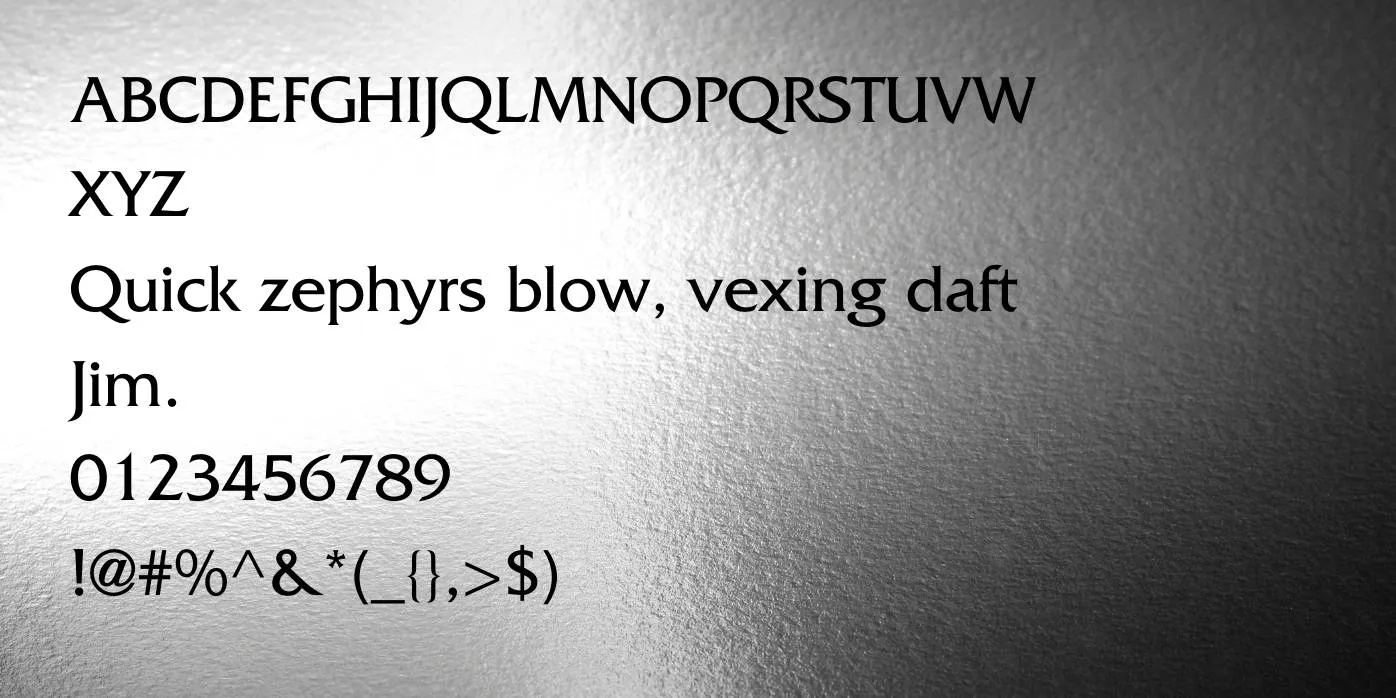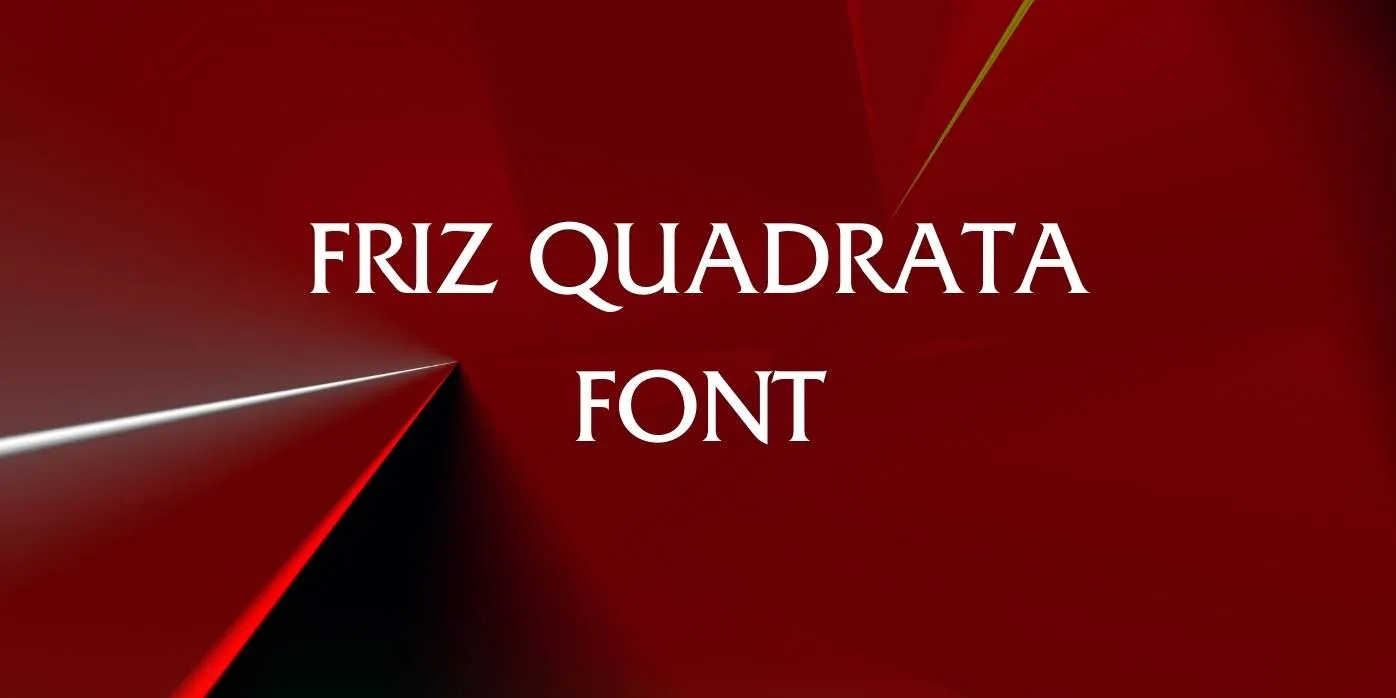
Friz Quadrata Font
Friz quadrata font is available here and it is highly utilized for its bold and italic function also for its use inside adobe and it is also used in android devices. The font family belongs to a serif typeface family and the designer of this beautiful typeface is Ernst Friz, Victor Caruso. The designer made this typeface in a little bit of fancy form with small swashes that seem pretty cool. It has Uppercase and Lowercase letters, Numbers and Numerals, and some useful characters also.
The font family has OpenType Layout and TrueType Outlines. The fashion of this font can be very new and stylish. The quality’s fonts are completed, mainly, calligraphy patterns and designs of several works of artwork. ¬†Usage You may use this font in all the painting works and notable elegant works which might be very critical to you in your strolling region and one-of-a-type designing possibilities that you just like the kid font.
The typeface is very common for creating different designs in designs software and especially CSS (Cascading Style Sheet). This font can be completed in all particular duties of designing in addition to calligraphy. Awesome global places, many human beings are not aware of the one’s lovelo font styles and that they even do now not recognize what shape of this. The font is very advantageous for making logo designs, Wallpaper designs, Typography, and many more.
Friz Quadrata font is a beautiful font that is great for both digital and printing projects. The designers of this elegant font are Ernst Friz, Victor Caruso, it is free for personal use. What font is similar to Friz Quadranta Font? Friz Quadrata font is a beautiful font that is great for both digital and printing projects.
Ingleby font is the closest font that has many similarities with this font. Is Friz Quadranta a Google Font? This typeface is beautiful and elegant with lightweight characters. It does not exist in the google font that you can download from our website and many others similar to this typeface.
Is Friz Quadranta a Serif Font? Friz Quadrata font is a beautiful font that is great for both digital and printing projects. The font family belongs to a serif typeface family and the designer of this beautiful typeface is Ernst Friz, Victor Caruso.